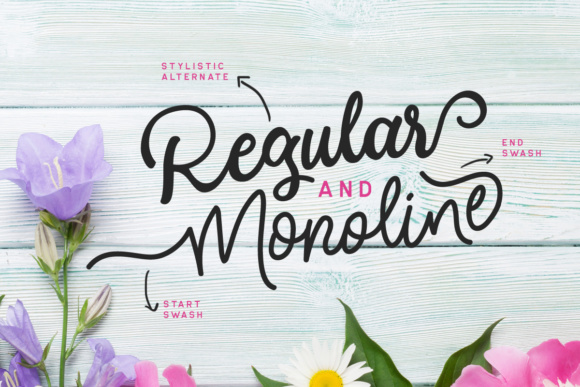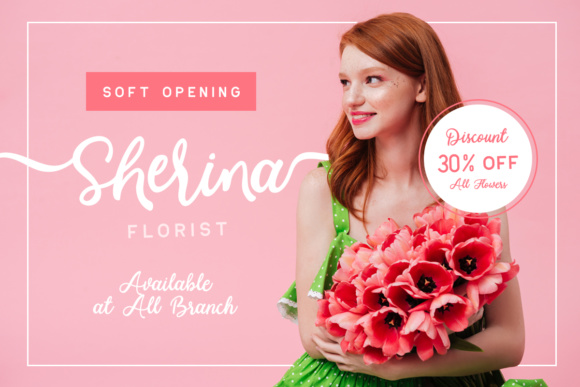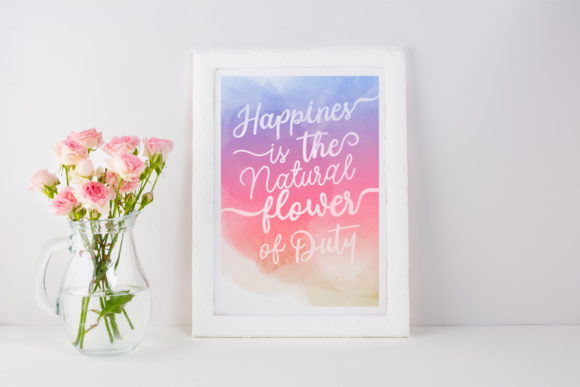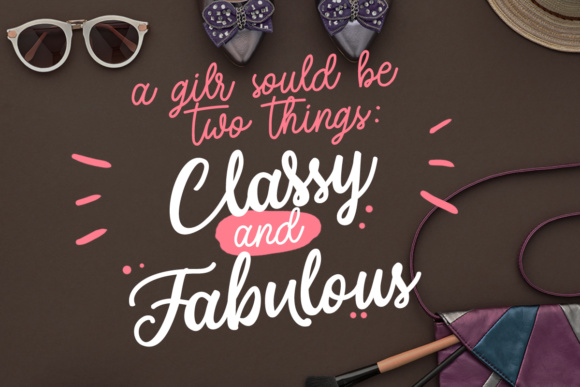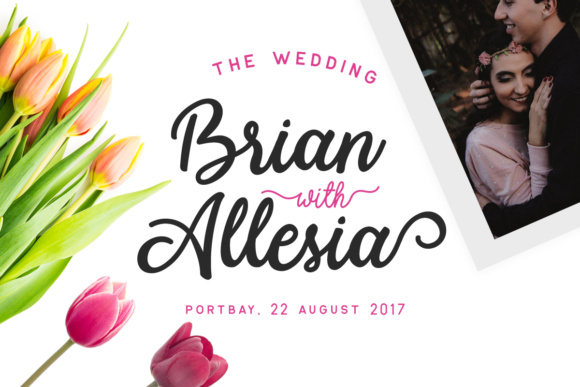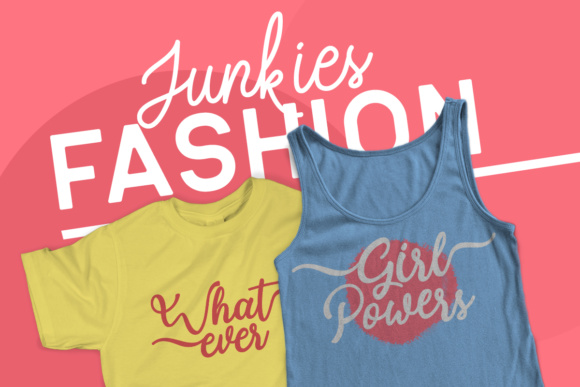
Introduction to Modesta Script Font
Have you ever found yourself stuck in a creative rut, searching for that perfect font to bring your feminine and girly project to life? I know I have. That’s why I’m excited to share with you my latest discovery – the beautiful Modesta Script Font.
This stunning font has two styles to choose from: monoline and regular. Its elegant and flowing design makes it a perfect fit for any project that requires a touch of sophistication and whimsy.
Whether you’re a professional designer or a creative enthusiast, the Modesta Script Font is a valuable resource to have in your design arsenal. With its high quality design and transparent background, it’s a free download that’s sure to elevate your next creative project. In this article, we’ll dive deeper into the world of Modesta Script Font and explore its many uses and benefits.
- High-quality, elegant script font suitable for creative projects and design resources.
- Designed in a modern calligraphy style, perfect for adding a touch of sophistication to your design.
- Includes a range of glyphs, making it suitable for use in various languages and creative projects.
Honest Review: Modesta Script Font
I recently came across the Modesta Script Font, and I have to say it’s a great addition to my design resource library. The free download made it an instant hit, as I love having access to high-quality fonts without breaking the bank.
One of the standout features of this font is its versatility. It’s perfect for creative projects that require a touch of elegance, and the transparent background makes it easy to use in a variety of settings. Whether you’re designing a logo, a website, or a social media graphic, the Modesta Script Font is sure to impress.
- ⚠️ Limited font styles, which may not be ideal for designers who prefer a wide range of options
- ⚠️ May not be suitable for projects that require a bold, attention-grabbing font
Overall, I’m really impressed with the Modesta Script Font. It’s a solid addition to any design library, and I’m excited to see how it will be used in future projects.
The Modesta Script Font is ideal for a variety of creative projects, including wedding invitations, birthday cards, and social media graphics. It’s also suitable for presentations, documents, and other business materials that require a high-quality, custom look.